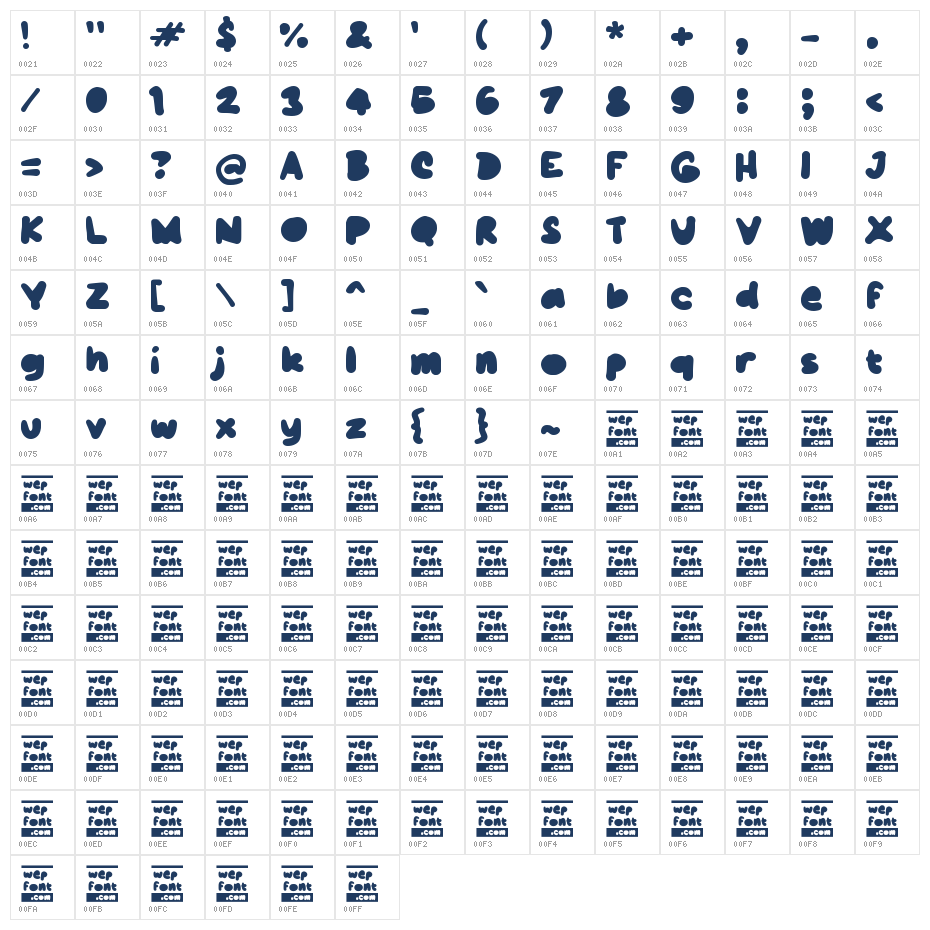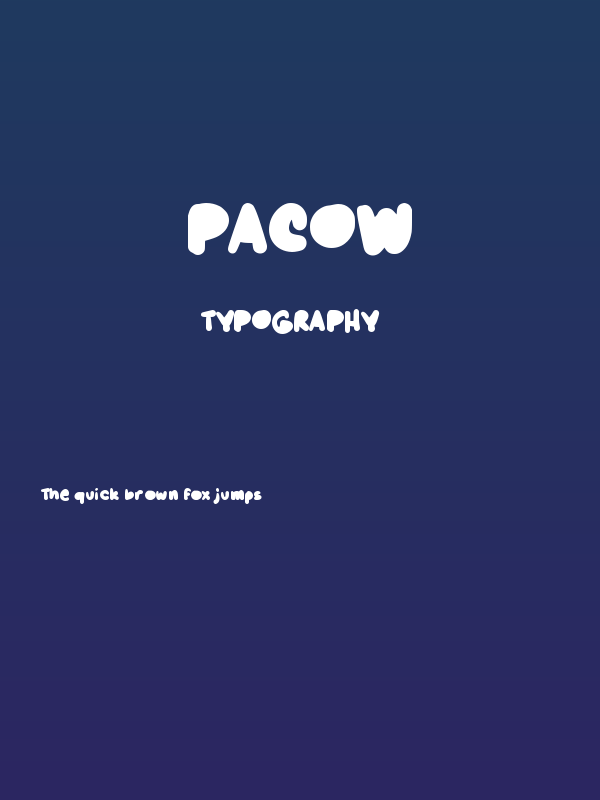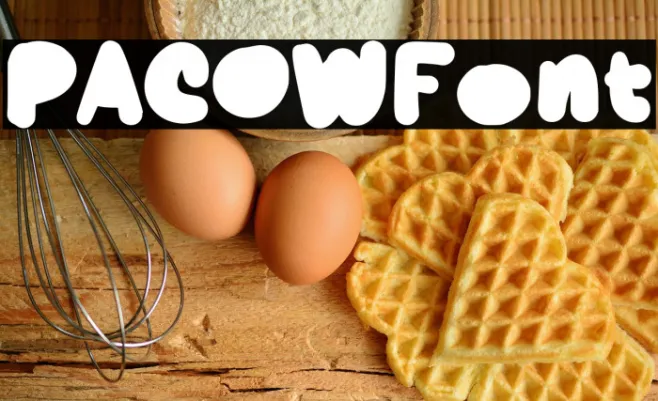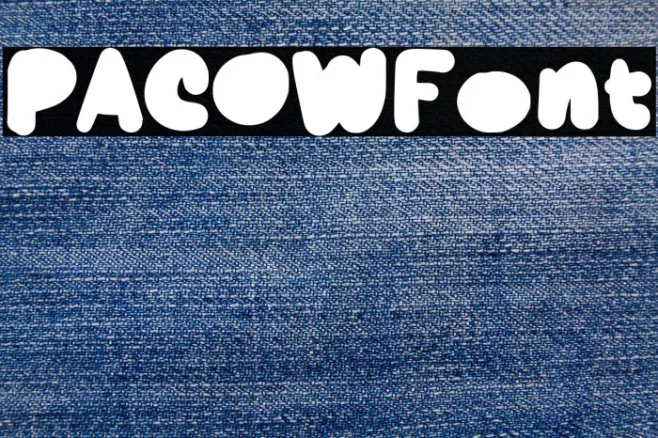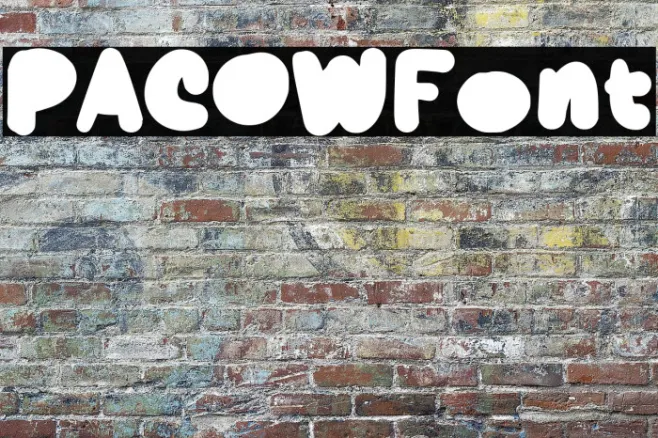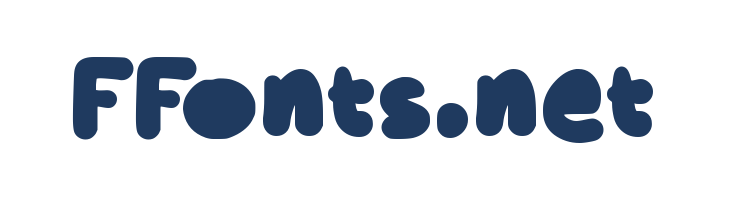
PACOW Font
PACOW Description
A playful, bold, rounded display font with a bubbly and informal style.
| Overall Style | Playful, Modern, Casual |
| Use Case | Headlines, Logos, Posters, Packaging |